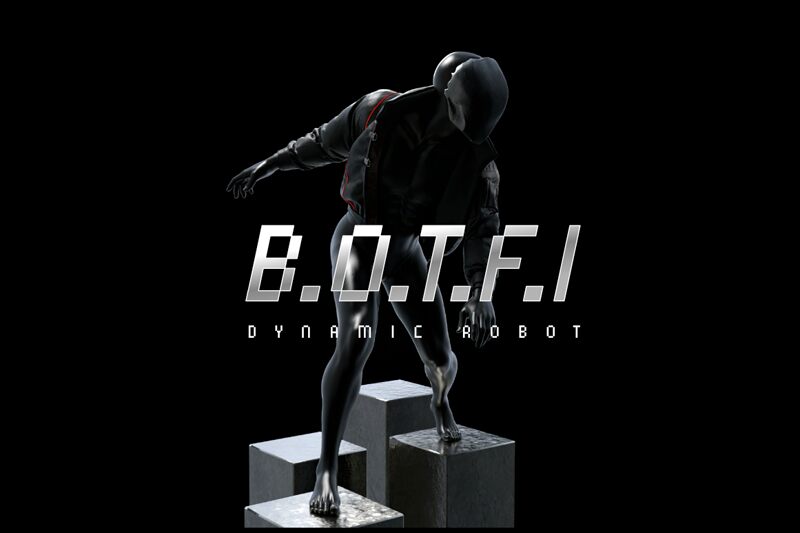
Speed Pixel font family by ffeeaarr is a free font family with techno style and a neat design. The structural presence of its letters makes it an eye-catching option for modern themed projects focused on technology. Both designs created within this family carry a dynamic feel that displays the wide imagination of their designer. They are as energetic and sleek as they are fun to use, taking every project they’re added to to the next level.
The font’s structured characters are perfect for capturing the attention of viewers of all ages. Its list of uses include posters, arcade-themed branding and packaging designs, prostate cancer awareness campaigns, signage, etc. You can also feature it in a digital space for reviews of elderly care equipment or for blogs sharing personal stories for support.